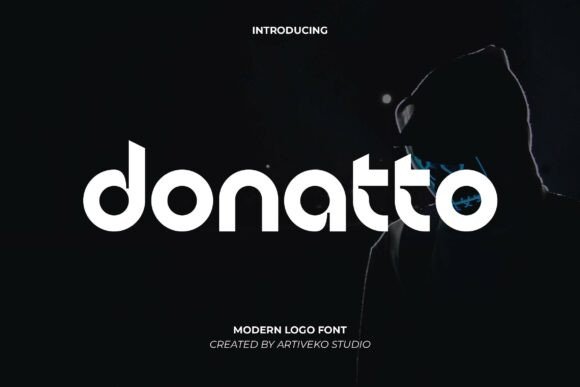
Donatto Font: The Ultimate Sans Serif for Modern Design
When it comes to typography, the right font can make all the difference in the world. A well-designed font can elevate your brand, enhance your message, and leave a lasting impression on your audience. In this article, we’ll explore the Donatto font, a sleek and versatile sans serif font that’s perfect for a wide range of design applications.
What is Donatto Font?
Donatto is a modern sans serif font designed with clarity, balance, and timeless appeal in mind. Its geometric precision, smooth curves, and refined proportions make it an ideal choice for designers looking for a clean and sophisticated look. Whether you’re working on a branding project, editorial layout, web design, packaging, presentation, or social media graphics, Donatto is the perfect font to help you achieve your design goals.
Key Features of Donatto Font
- Geometric Precision: Donatto’s geometric precision ensures that every line, curve, and proportion is meticulously crafted to create a clean and precise look.
- Smooth Curves: The font’s smooth curves add a touch of elegance and sophistication, making it perfect for designs that require a high level of refinement.
- Refined Proportions: Donatto’s refined proportions ensure that the font is balanced and harmonious, making it easy to read and visually appealing.
- Timeless Appeal: The font’s timeless appeal ensures that it will remain relevant for years to come, making it a great investment for designers and brands.
Design Applications for Donatto Font
Donatto is a versatile font that can be used in a wide range of design applications, including:
- Branding: Donatto is perfect for branding projects, such as logos, business cards, and letterheads, where a clean and sophisticated look is essential.
- Editorial Layouts: The font’s clarity and readability make it ideal for editorial layouts, such as magazines, newspapers, and books.
- Web Design: Donatto is a great choice for web design, where its clean and precise look can help to enhance the user experience.
- Packaging: The font’s versatility makes it perfect for packaging design, where it can be used to create eye-catching labels and packaging materials.
- Presentations: Donatto is a great choice for presentations, where its clarity and readability can help to communicate complex information in a clear and concise manner.
- Social Media Graphics: The font’s modern and sophisticated look makes it perfect for social media graphics, such as Facebook posts, Twitter headers, and Instagram stories.
Typography Tips for Using Donatto Font
In conclusion, Donatto font is a sleek and versatile sans serif font that’s perfect for modern designers. Its geometric precision, smooth curves, and refined proportions make it an ideal choice for a wide range of design applications. With its timeless appeal and versatility, Donatto is a great investment for designers and brands looking to elevate their typography and enhance their message.